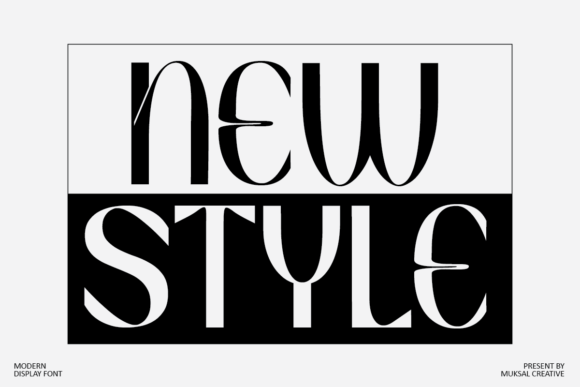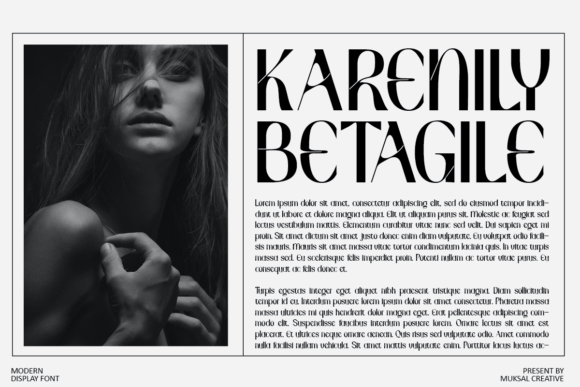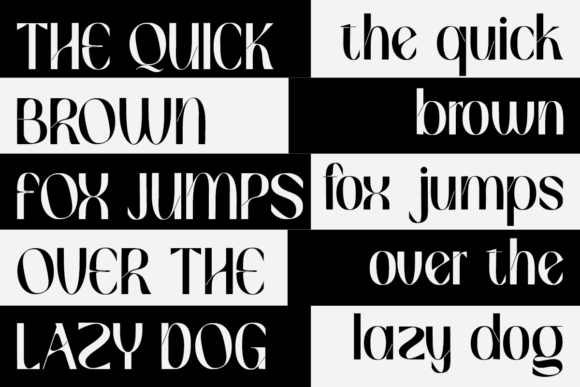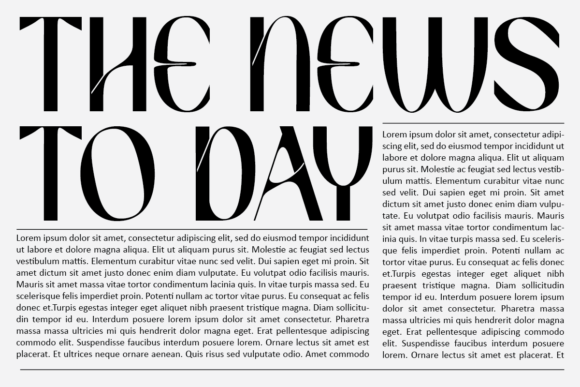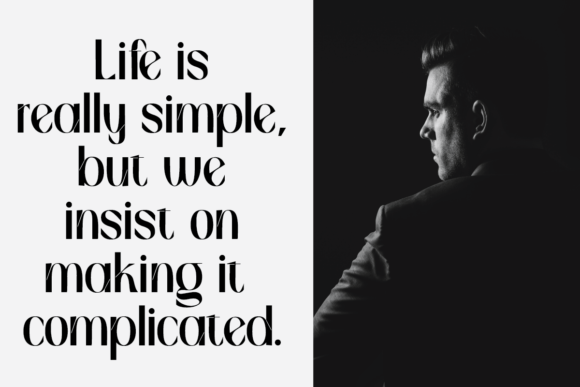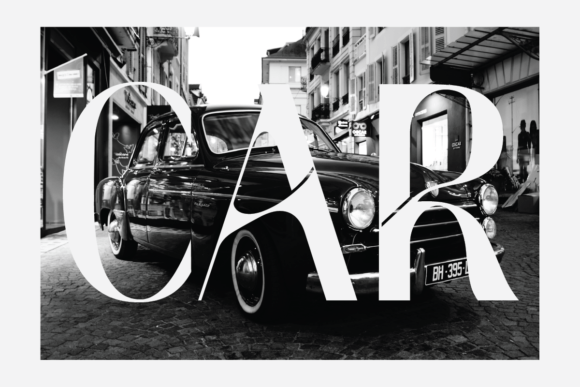
Timeless Typography: Unleashing the Power of Beron Font
Have you ever stared at a blank canvas, waiting for the perfect idea to strike? That’s exactly what happened when I stumbled upon the enchanting Beron Font. Its bold, retro vibe instantly transported me to a bygone era, sparking a creative fire that refused to be extinguished.
As a designer, there’s nothing quite like discovering a font that captures the essence of a particular era or aesthetic. Beron Font is more than just a stylish display font – it’s a key to unlocking the nostalgic charm of yesteryear. With its vintage-inspired details and bold letterforms, it’s the perfect tool for adding a touch of retro flair to your designs.
Whether you’re creating a poster, logo, or anything in between, Beron Font is an invaluable addition to your design arsenal. Its versatility and timeless appeal make it a valuable asset for designers looking to inject a little retro magic into their work.
- Unique Characteristics: Beron Font is known for its distinctive, modern design with a mix of geometric and organic elements, giving it a unique and stylish look. The font is highly legible and suitable for use in a variety of contexts, from body text to headlines.
- Font Family: Beron Font is a sans-serif font family with a total of 12 styles, including Light, Regular, Medium, Bold, Extra Bold, and Black. This range of styles allows users to create a consistent look and feel across their designs.
Beron Font Review
At first glance, the Beron font caught my attention with its unique blend of modern and vintage elements ✨. The font’s versatility makes it suitable for a wide range of applications, from fashion and lifestyle to technology and gaming.
Some of the strengths of the Beron font include:
- Excellent legibility, making it perfect for body text and long passages
- A wide range of weights and styles, allowing for easy customization
- Support for multiple languages, making it a great choice for global brands
However, there are some limitations to consider ⚠️:
- The font may not be as effective for headlines or titles, as the characters can be a bit too rounded
- The font’s vintage elements may not be to everyone’s taste, and may not work well for very modern or minimalist designs
- The font could benefit from more extensive language support, particularly for non-Latin scripts
Overall, the Beron font is a solid choice for designers looking for a unique and versatile font. While it may not be perfect for every project, it’s definitely worth considering for its legibility, customization options, and global reach.
For best results, use the Beron Font for headings and titles, and pair it with a clean sans-serif font for body text.
The Beron Font is perfect for:
– Creative headings and titles
– Digital marketing materials
– Fashion and lifestyle design
Remember to pair the Beron Font with a clean and simple font for body text to achieve the best results.